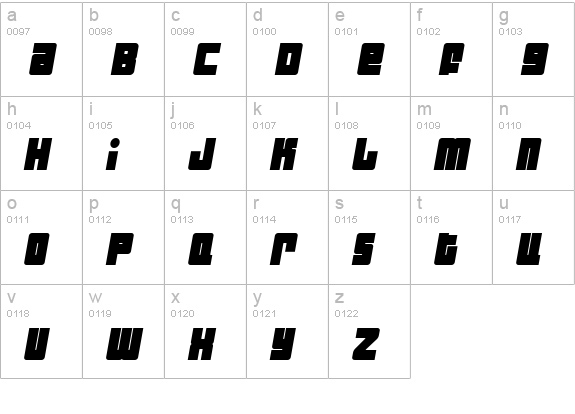
Industrial Decapitalist BoldItalic font is a captivating and striking typeface that truly embodies the essence of decapitalism. With its strong and bold letterforms, it exudes power and determination, while its italicized slant adds an element of elegance and sophistication. This unique combination makes Industrial Decapitalist BoldItalic font perfect for projects that require a balance between strength and grace. Designed with meticulous attention to detail, this font captures the essence of the industrial era, with its rugged edges and robust construction. It is a testament to the resilience of human creativity, showcasing the ability to transform even the harshest environments into something beautiful. One of the most remarkable aspects of Industrial Decapitalist BoldItalic font is that it is freely available to download at FontsMarket.com. This means that anyone can access and utilize this incredible typeface without any financial constraints. Whether you are a professional designer, a student, or simply someone with a passion for typography, you can now enjoy the benefits of this stunning font without having to worry about costs. By offering Industrial Decapitalist BoldItalic font for free, FontsMarket.com aims to democratize access to high-quality typography, empowering individuals and businesses to express their creativity without limitations. This font is not just a tool for design; it is a symbol of the belief that creativity should be accessible to all. So go ahead, download Industrial Decapitalist BoldItalic font from FontsMarket.com and unleash your imagination. Whether you are working on a branding project, an editorial layout, or any other design endeavor, this font will undoubtedly leave a lasting impression. With its boldness, elegance, and availability, it is the perfect choice for those who seek to make a statement and stand out from the crowd.